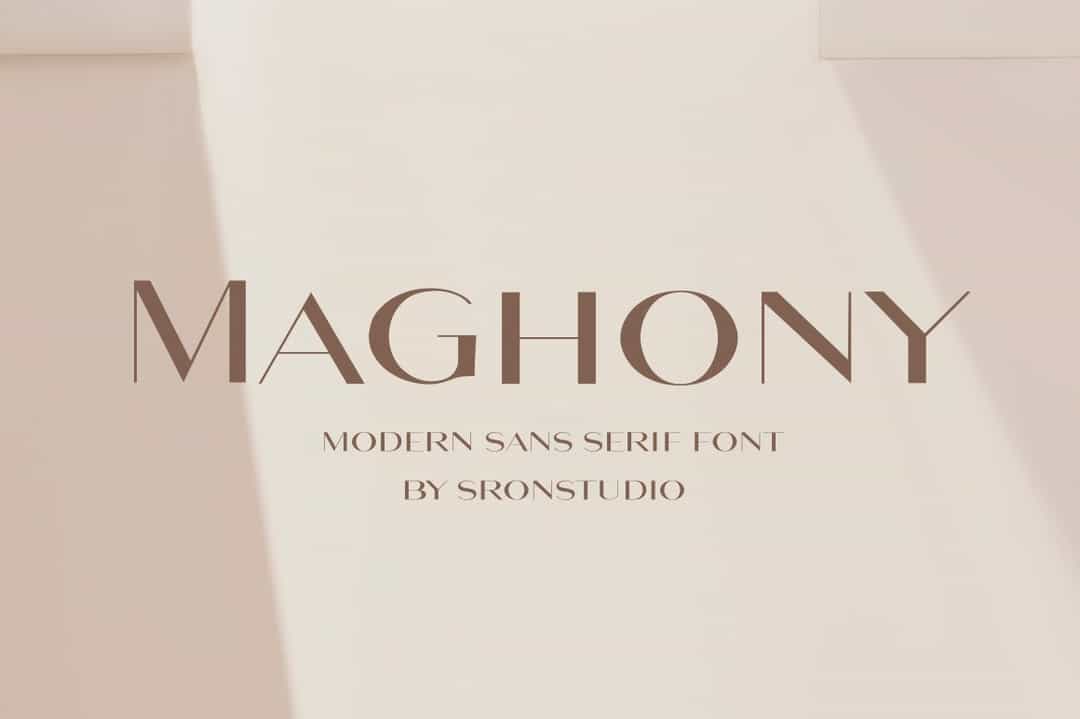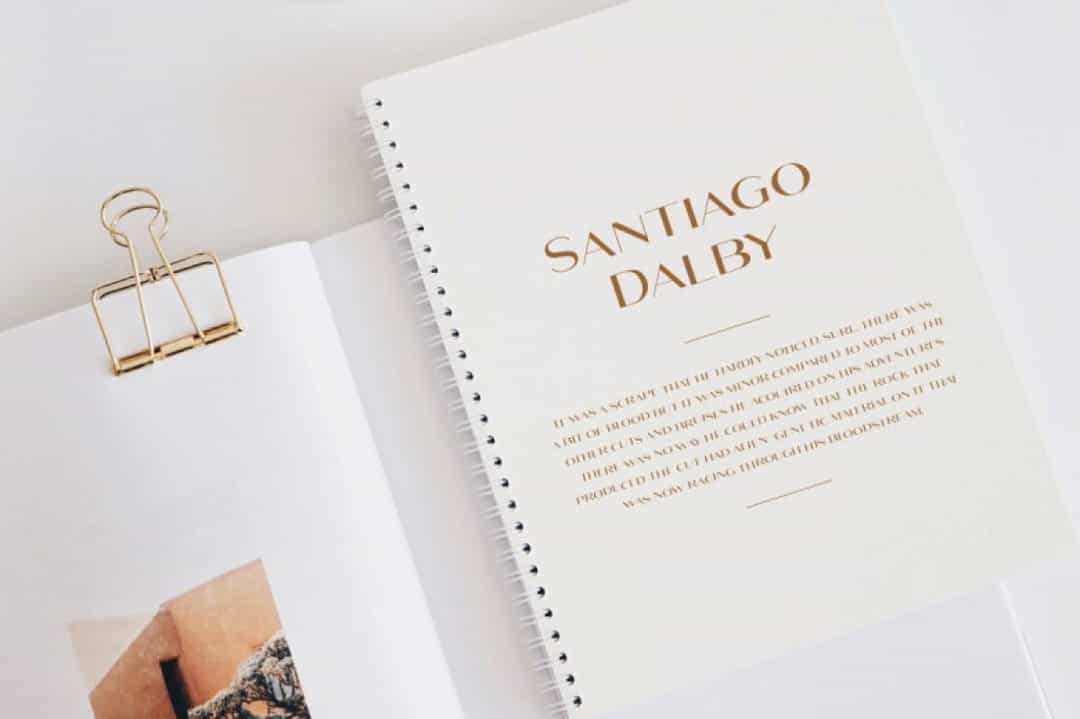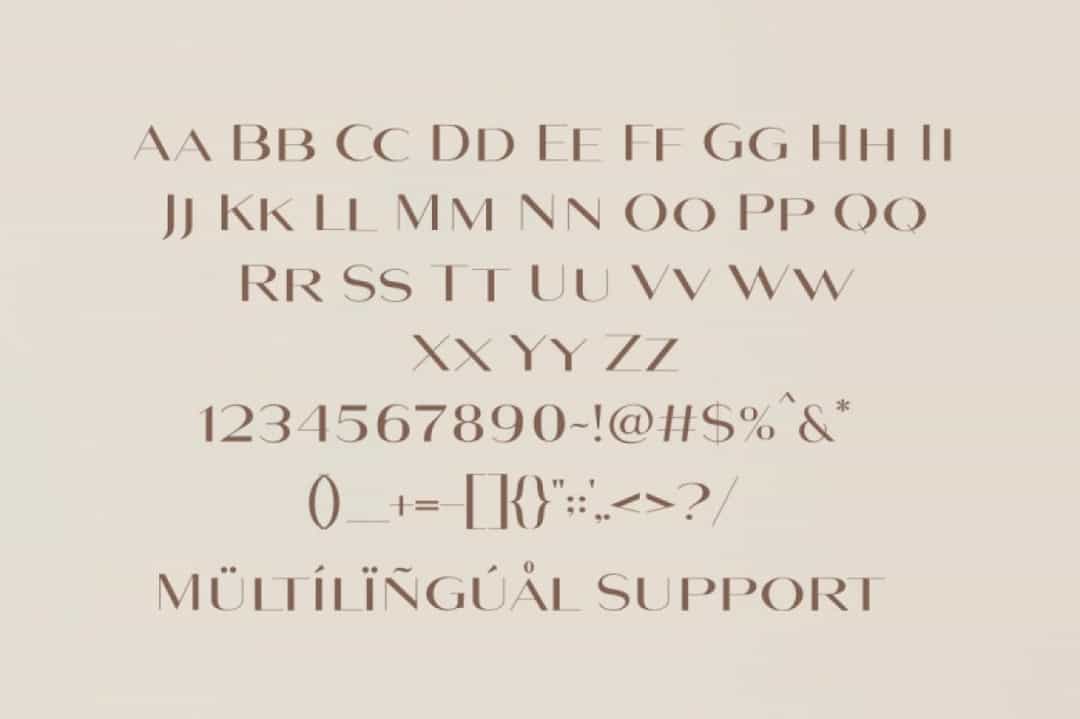
Discover Maghony Font, part of the Sans Serif collection—a versatile and unique font perfect for adding a personal touch to your projects. Download it for free and enjoy crafting designs with style, from invitations to social media posts. This font is available exclusively for personal use, giving you the freedom to create without limits. Unlock your creativity with Maghony Font today!
Maghony is a modern sans serif font It’s perfect for logo, greeting cards, wedding cards, social media posts, ads, product packaging with labels, watermarks and photography and other purposes.